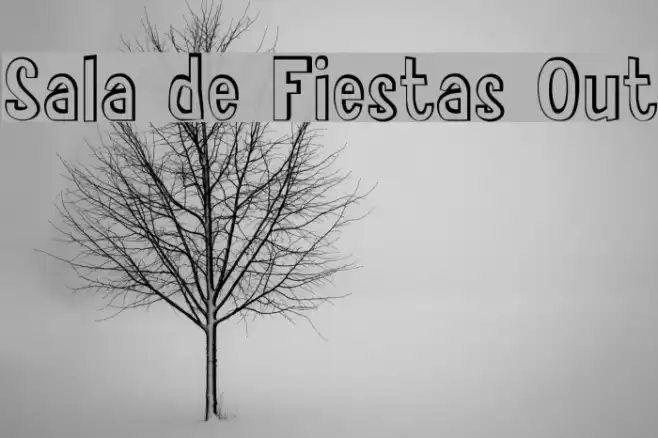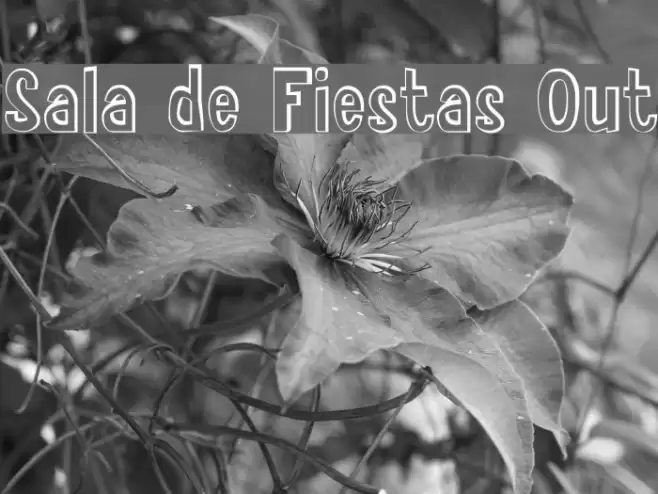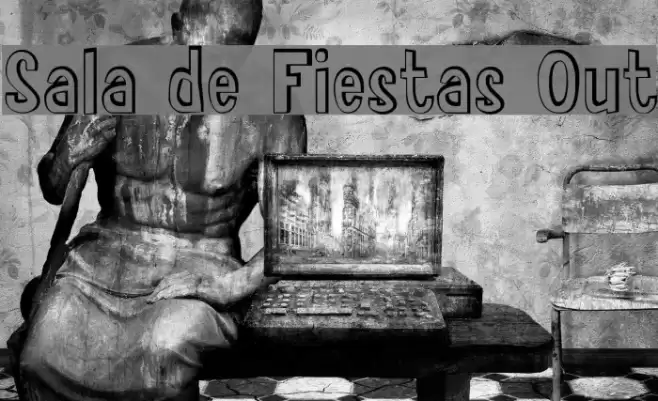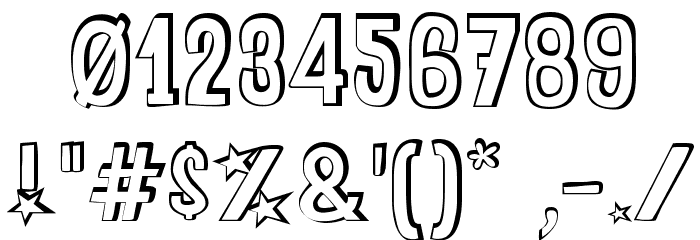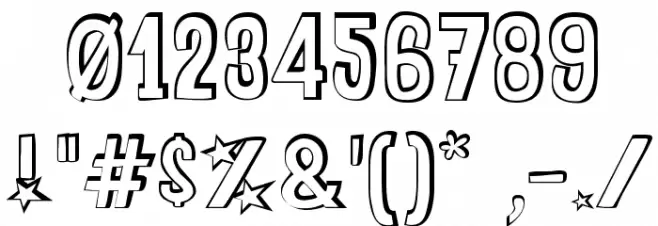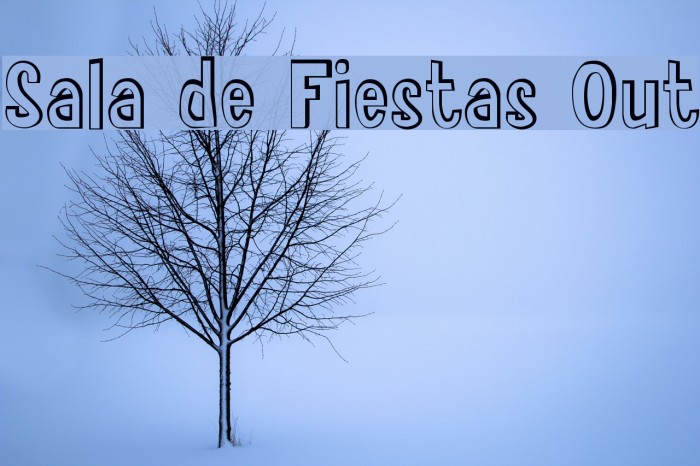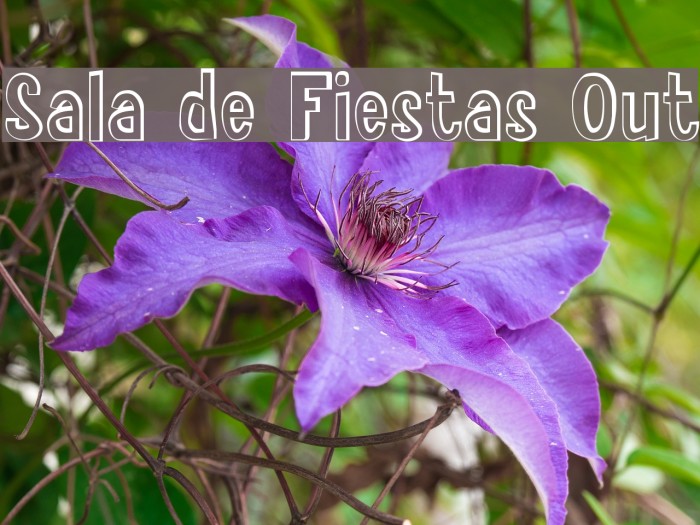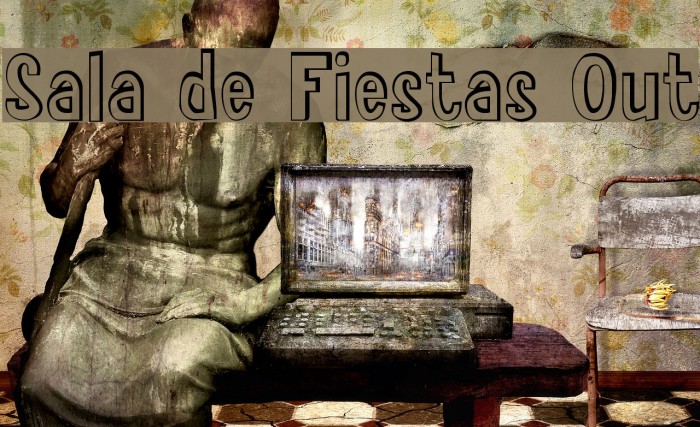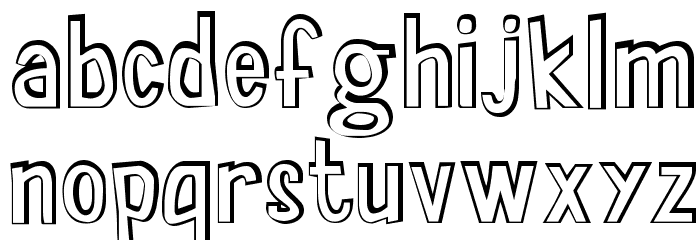
Sala de Fiestas Out Font
Sala de Fiestas Out Description
This font features a playful and bold outline style, characterized by its thick, hollow letterforms that create a striking visual impact. The uppercase and lowercase letters maintain a consistent width, giving a uniform appearance across the alphabet. The numbers and special characters follow the same design principles, ensuring cohesion throughout. The font's unique style makes it stand out, with its bold outlines providing a sense of depth and dimension. It is well-suited for projects that require a fun and engaging aesthetic, such as party invitations, posters, or children's book covers.
A playful, bold outline font with uniform letterforms and a striking visual impact from Cartoon fonts.
- Proposed Projects: Ideal for party invitations, posters, children's book covers, and other playful designs.
- Overall Style: Playful